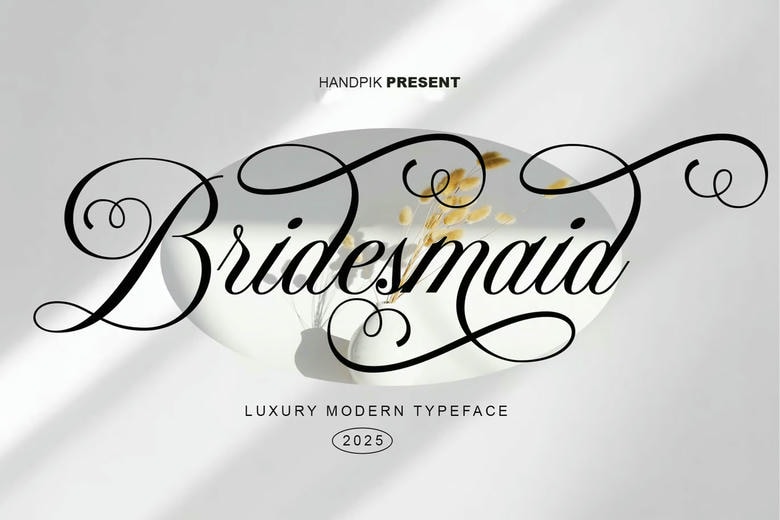
Bridesmaid Font
Bridesmaid is a high quality Calligraphy font that is designed by Handpikproject and is available for free download and personal use. The free version provides all uppercase and lowercase letters and a few special characters too.
Bridesmaid will perfect for many project: book, magazines, logo, branding, photography, quotes, blog header, poster, advertisements, etc.
Bridesmaid Calligraphy Script Font